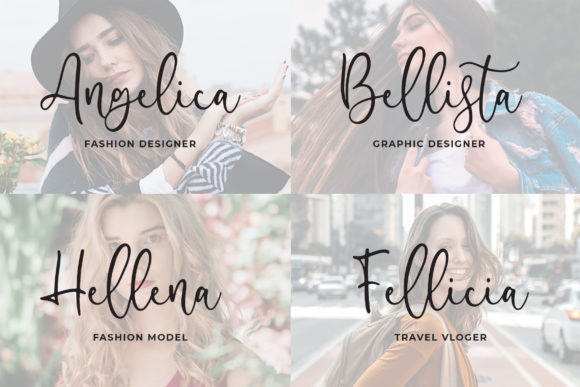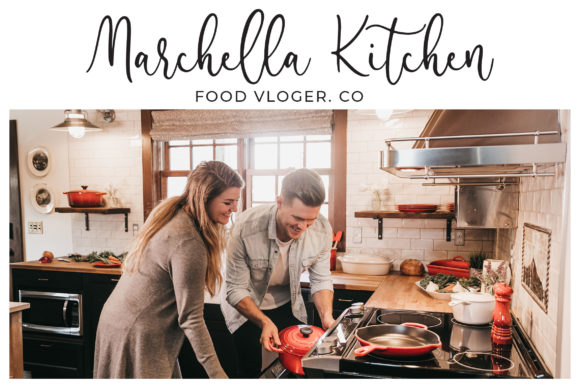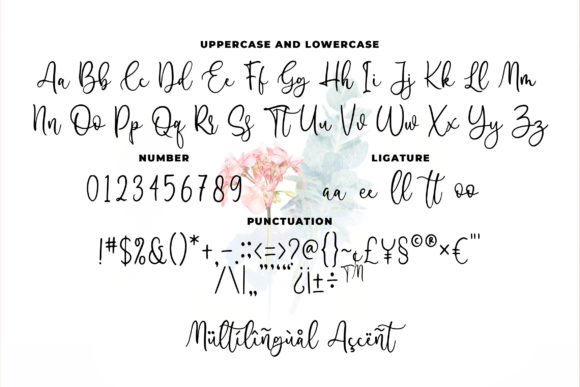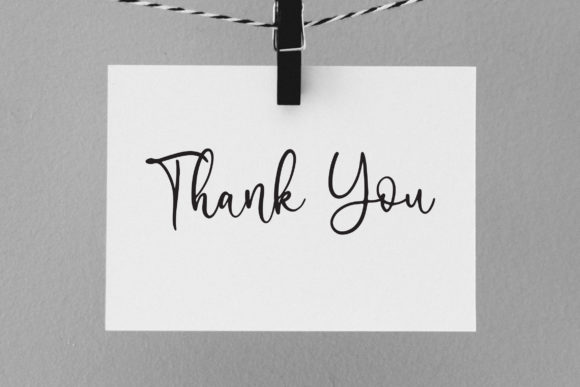
Famella Font: Elevate Your Design with Modern Calligraphy
Famella Font is a stunning modern calligraphy style font that has taken the design world by storm. Created with a brush pen, this beautiful font is perfect for adding a personal touch to any design project. Whether you’re a designer, crafter, or DIY enthusiast, Famella Font is sure to inspire your creativity and take your designs to the next level.
The Unique Charm of Famella Font
What sets Famella Font apart from other fonts is its unique, hand-crafted feel. Made with a brush pen, each letter and stroke has a distinct, organic quality that gives it a personal and intimate feel. This font is perfect for designs that require a touch of elegance, sophistication, and whimsy. From wedding invitations and stationery to branding and packaging, Famella Font can add a special something to any design project.
Key Features of Famella Font
• Modern Calligraphy Style: Famella Font boasts a modern calligraphy style that is both fresh and timeless.
• Brush Pen Created: Each letter and stroke was carefully crafted with a brush pen, giving the font a unique, hand-crafted feel.
• Perfect for Personalized Designs: Famella Font is ideal for designs that require a personal touch, such as wedding invitations, stationery, and branding.
• Highly Versatile: This font can be used for a wide range of design projects, from digital designs to print materials.
• Wedding Invitations and Stationery: Add a touch of elegance and sophistication to your wedding invitations, stationery, and other paper goods with Famella Font.
• Branding and Packaging: Use Famella Font to create beautiful, eye-catching branding and packaging that stands out from the crowd.
• Digital Designs: Famella Font can be used for digital designs, such as social media graphics, blog headers, and more.
• Crafting and DIY Projects: Add a personal touch to your crafting and DIY projects, such as handmade cards, gift tags, and more.
Font Name Famella Font
Author Blankids Studio
Famella Font is a beautiful, modern calligraphy style font that can add a special personal touch to any design project. With its unique, hand-crafted feel and highly versatile design, Famella Font is perfect for designers, crafters, and DIY enthusiasts alike. Whether you’re looking to create elegant wedding invitations, eye-catching branding, or personalized crafting projects, Famella Font is sure to inspire your creativity and take your designs to the next level.